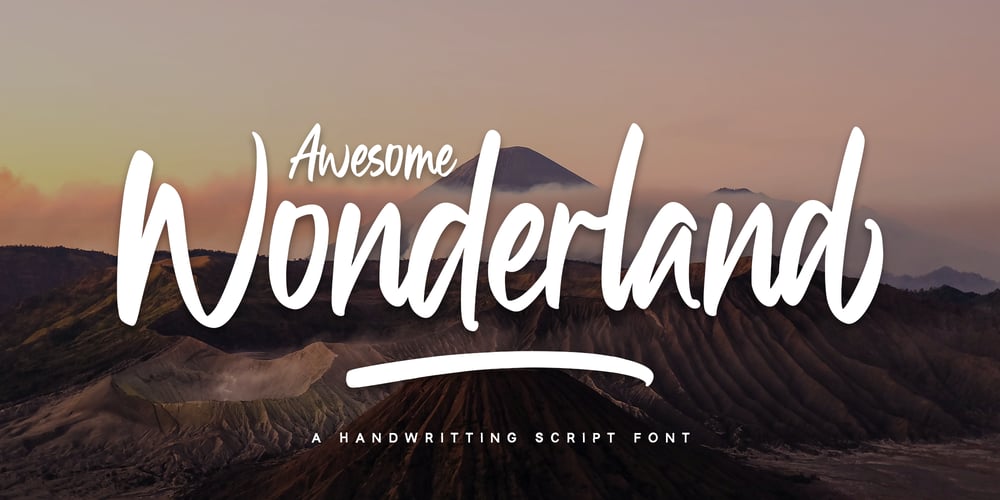
Awesome Wonderland Font Family was designed by Nadia Salsabila and published by Alpaprana. Awesome Wonderland contains 1 styles and family package options. Awesome-Wonderland is an elegant handwriting script font with authentic and casual feels. It will be perfectly used for Branding, Logo Design, Lettering, Logotype, Clothing, Poster, magazine, packaging, posters, shopping bags, t-shirts, book covers, photography, special events and other design project.